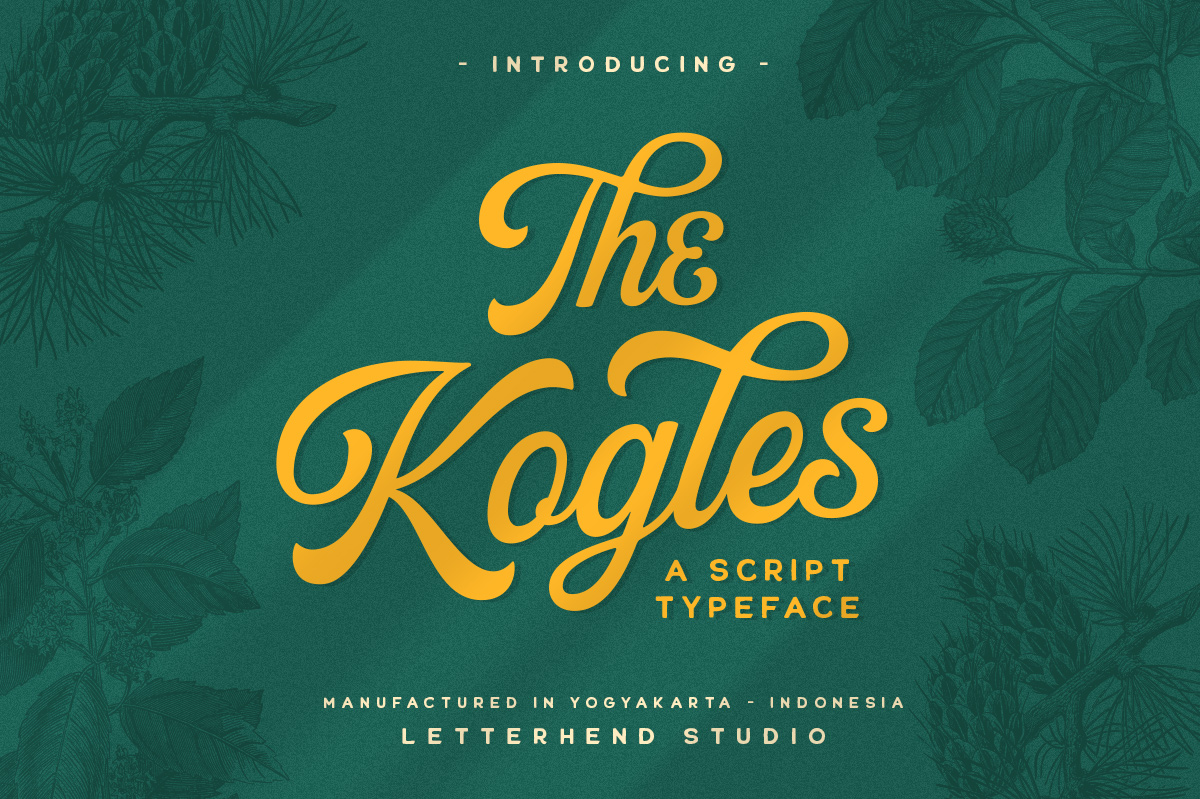
The Kogles Script Typeface
The Kogles Script Typeface is perfect for elegant wedding invitation suites, luxury calligraphy services, sophisticated greeting card collections, premium boutique branding, graceful personal stationery designs, refined social event graphics, artisanal handmade product labels, upscale beauty salon signage, delicate jewelry packaging, and romantic lifestyle blog headers. This flowing typeface brings handwritten elegance to luxury paper goods companies, high-end event planning services, elegant calligraphy studios, premium gift card designs, and sophisticated feminine brand communications.
The Kogles Script Typeface is exciting because it captures the timeless art of elegant penmanship and sophisticated handwriting through its beautifully flowing script letterforms. The font features graceful characters with refined stroke variations and classic calligraphic details that evoke the elegance of master calligraphers, the sophistication of hand-penned correspondence, and the personal touch of artisanal craftsmanship. Its distinctive construction demonstrates calligraphic mastery with carefully crafted flourishes that create an immediate sense of elegance and handwritten authenticity. The font's script presence and calligraphic authenticity make it perfect for brands seeking to communicate personal elegance, handcrafted quality, and sophisticated penmanship in their visual communications.
The Kogles Script Typeface family includes various calligraphic styles: Light Script, Regular Script, Bold Script, Flowing Script, Elegant Script, Classic Script, Ornate Script, Simple Script, Condensed Script, Extended Script, Flourished Script, and Refined variants. Each family member maintains the core script DNA while offering different levels of ornamentation for diverse elegant design applications. The comprehensive typeface collection ensures consistent calligraphic branding across luxury stationery campaigns, elegant events, and sophisticated communication materials.
Whether you're creating elegant stationery brand identities, designing sophisticated event materials, developing graceful website headers, or crafting luxury promotional campaigns, The Kogles Script Typeface delivers outstanding calligraphic appeal and script authenticity. The font's distinctive flowing personality excels in elegant logos, luxury packaging design, sophisticated applications, and personal projects where handwritten elegance and calligraphic sophistication are essential.